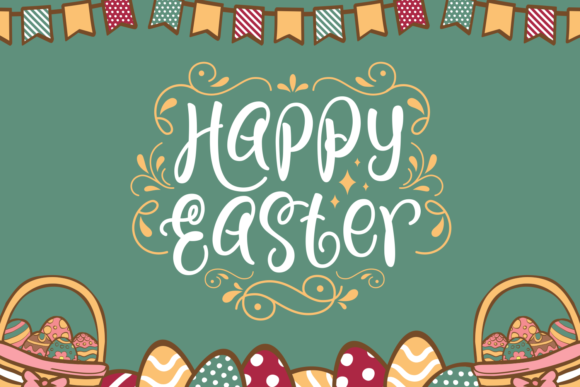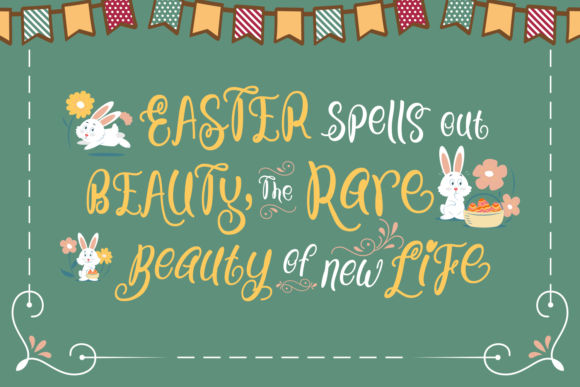
Brighten Up Your Easter Designs with Bunny Nose Font
Do you remember the moment when you first saw a beautifully designed Easter card, and you thought to yourself, ‘I want to create something like that’? That spark of creativity is what drives us as designers to keep pushing the boundaries of our art. For Easter-themed designs, one essential tool is the Bunny Nose Font – a sweet handwritten font that embodies the spirit of spring.
Bunny Nose Font is the perfect companion for designers who want to add a touch of whimsy and warmth to their Easter and spring-themed projects. Its unique, playful style makes it an invaluable asset for any designer looking to create eye-catching and memorable designs. Whether you’re creating digital invites, print materials, or social media graphics, Bunny Nose Font is sure to bring a smile to your audience’s faces.
Bunny Nose Font Key Features
- Font Family: Bunny Nose is a unique, hand-drawn font designed for creative and playful purposes.
- Unique Characteristics: Bunny Nose features a distinctive, whimsical design with rounded edges and soft lines, creating a friendly and approachable feel.
Bunny Nose Font Review
Overall, I think the Bunny Nose Font has some great qualities, but it’s not without its flaws. Let’s start with the good stuff! ✨
Unique and quirky character – I love the whimsical feel of this font, it’s perfect for adding a touch of playfulness to your designs.
High level of customization – Bunny Nose Font offers a range of styles and sizes, making it easy to tailor it to your specific design needs.
Legibility issues at smaller sizes – While the font is fun to use, it can be difficult to read at very small sizes, which may limit its use in certain applications.
Not suitable for formal or professional designs – The Bunny Nose Font’s playful nature makes it better suited for casual or creative projects, rather than formal or professional ones.
Overall, I think the Bunny Nose Font is a great addition to any designer’s toolkit, but it’s essential to use it in the right context. With its unique character and high level of customization, it’s perfect for adding a touch of personality to your designs. Just be mindful of its limitations, and you’ll be golden!
Tips for Getting the Most Out of Bunny Nose Font
Use Bunny Nose Font for playful and whimsical designs.
Combine with bold colors and graphics for a fun and eye-catching effect.
Use for branding and marketing materials, such as social media graphics and business cards.
Bunny Nose Font is commonly used for:
Children’s products and services.
Playful and creative designs.
Branding and marketing materials for businesses with a fun and whimsical tone.
Alternatives to Bunny Nose Font
The Bunny Nose Font is a playful, cursive script font often used in children’s books and nursery rhymes. Here are a few alternatives for designers:
Great Vibes is a modern, elegant script font that can be used for various purposes such as invitations, branding, and advertising. It is more refined and sophisticated than the Bunny Nose Font, making it suitable for formal events and high-end branding. Great Vibes has a more flowing and connected feel, giving it a more professional look.
Carolyna Pro is a beautiful, high-end script font that can be used for luxury branding, invitations, and packaging. It is more detailed and ornate than the Bunny Nose Font, making it suitable for high-end fashion and beauty brands. Carolyna Pro has a more delicate and refined feel, giving it a more sophisticated look.